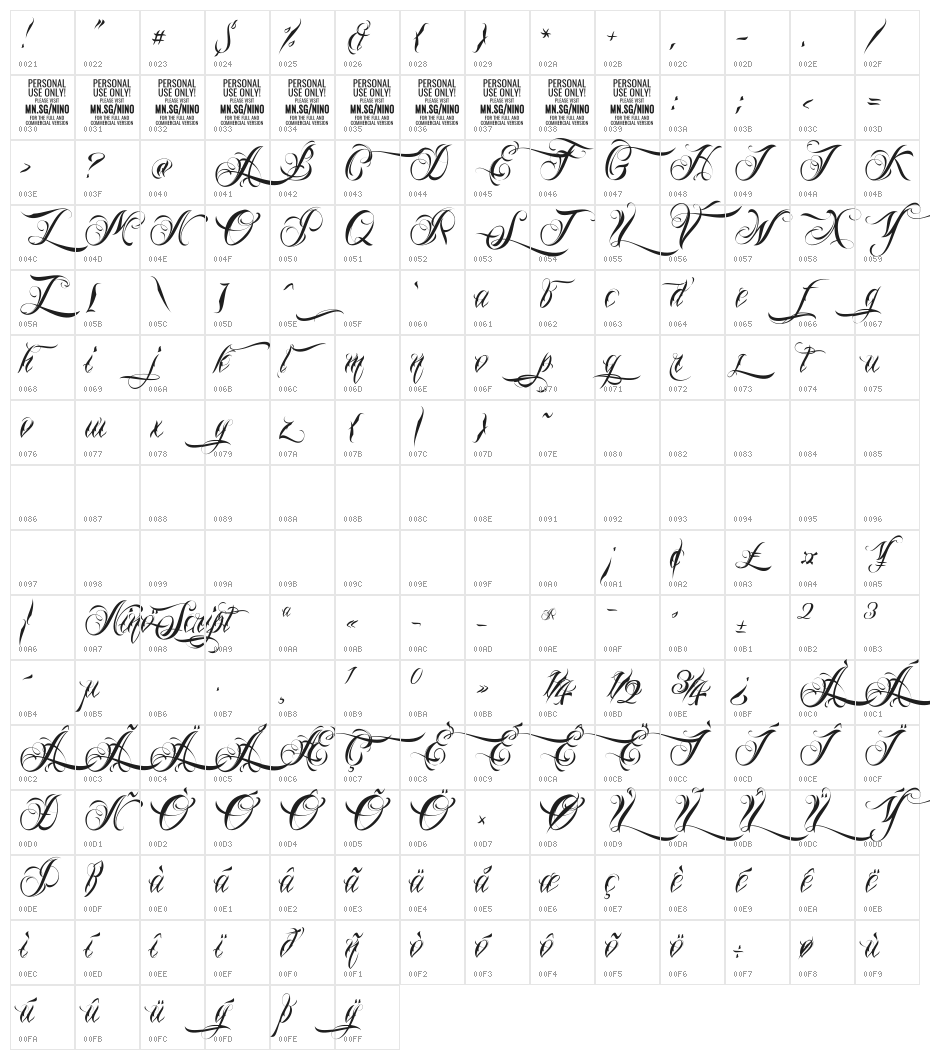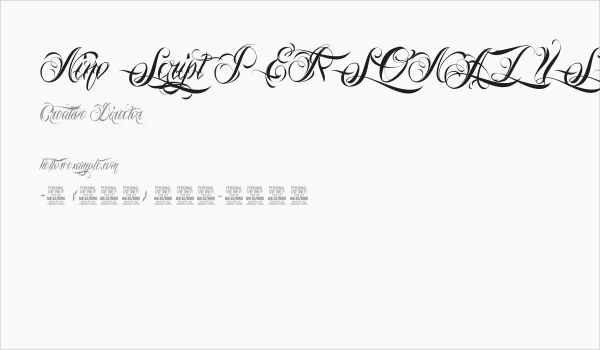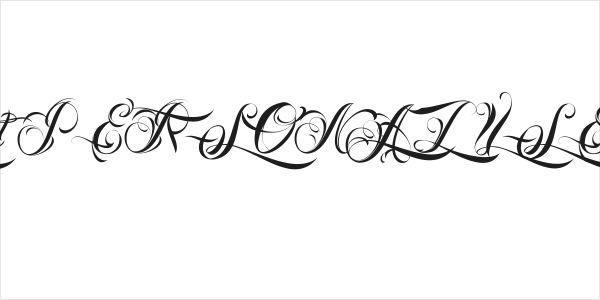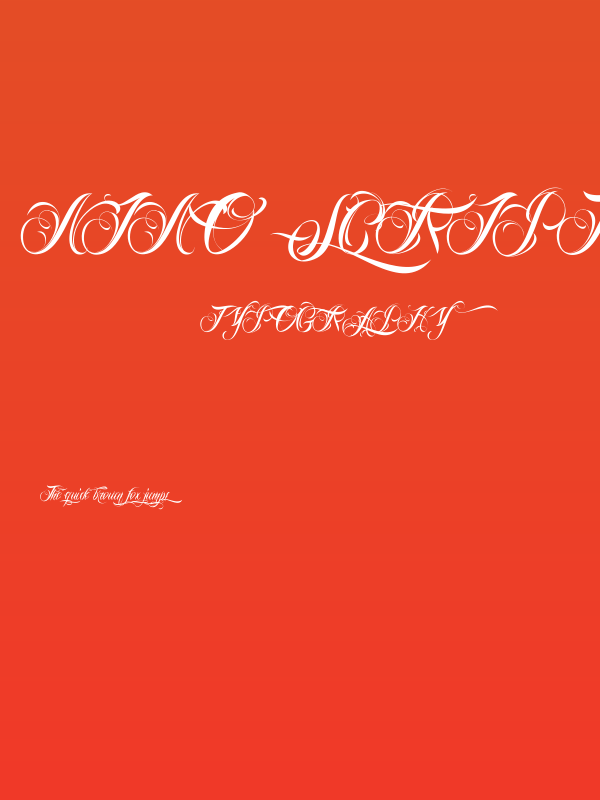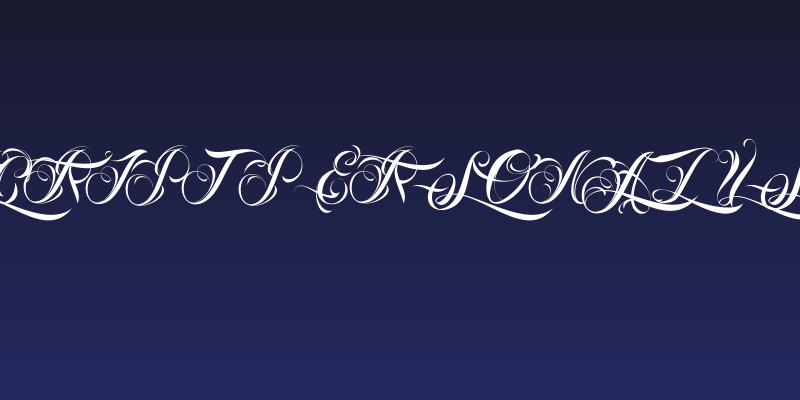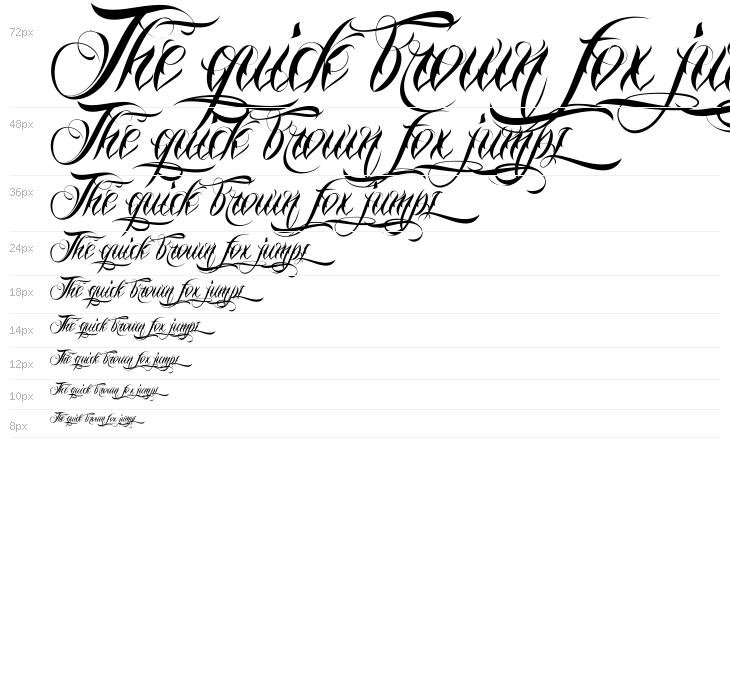
Nino Script PERSONAL USE ONLY Font
Nino Script PERSONAL USE ONLY Description
This is an elegant and intricate script font characterized by its flowing, cursive style with elaborate swashes and flourishes. The uppercase letters are particularly ornate, featuring extended loops and curves that give the font a highly decorative appearance. The lowercase letters maintain a consistent style, with smooth connections and a fluid motion that enhances readability despite the complexity. The numbers and special characters are designed to match the overall aesthetic, incorporating similar flourishes and curves. This font exudes a sense of sophistication and artistry, making it suitable for formal and creative applications.
| Proposed Projects | Ideal for wedding invitations, elegant branding, greeting cards, and artistic projects requiring a touch of sophistication. |